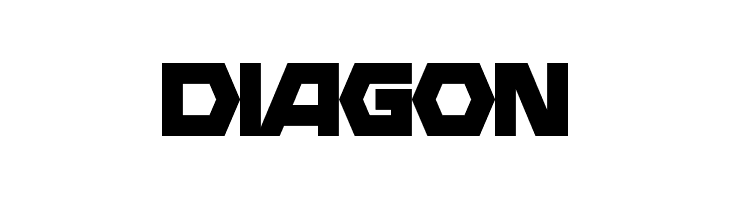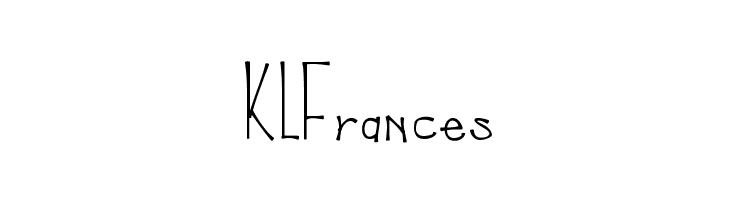
A bold, angular font with a futuristic, geometric design.
A bold slab serif font with strong, block-like serifs for impactful text.
A bold, friendly handwritten script with smooth, connected strokes.
A playful, hand-drawn font with tall, narrow characters and a whimsical style.
A geometric and modern font with architectural elements and artistic flair.
A playful, hand-drawn font with tall, narrow letters and a whimsical style.
A bold, outlined decorative font with a strong, three-dimensional effect.